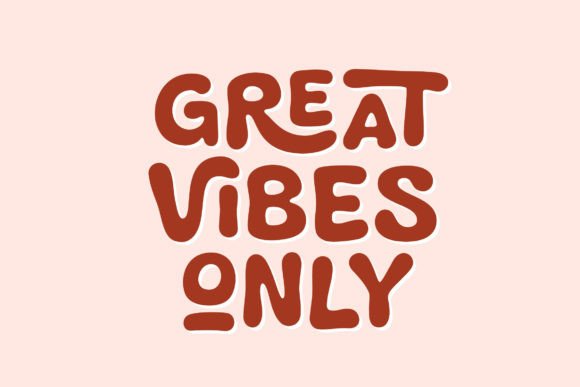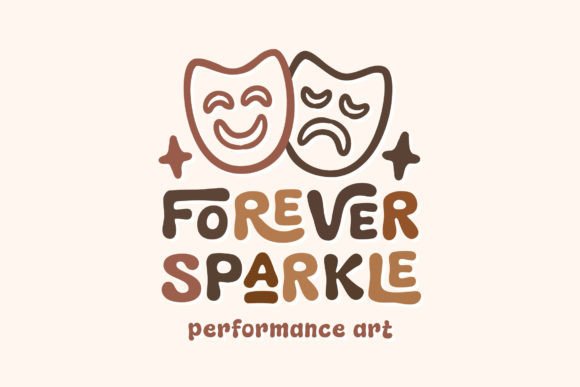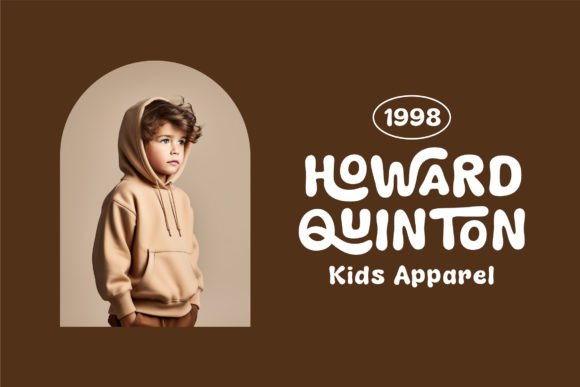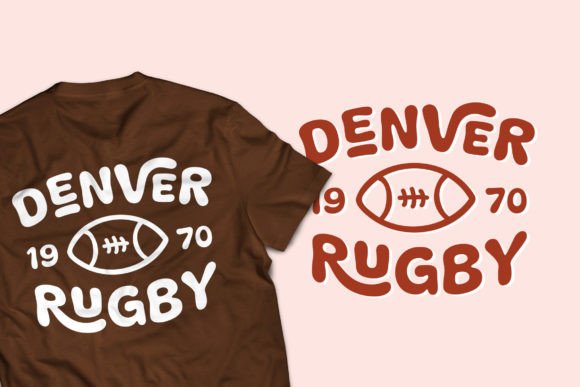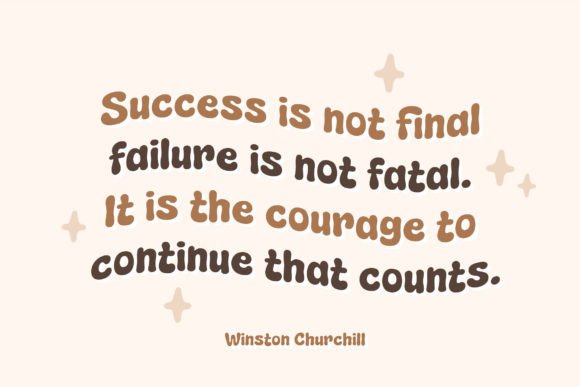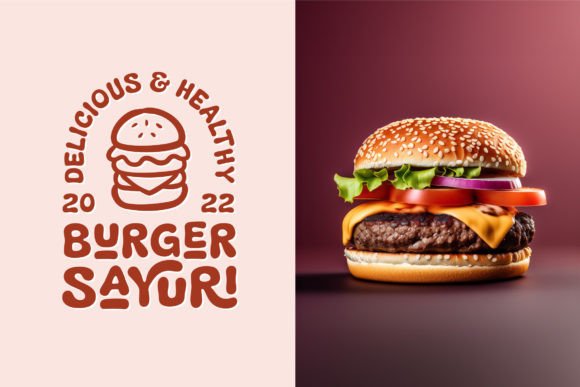
Introducing Caroline Everett Font: Add a Playful Touch to Your Designs
Are you looking for a font that can add a unique and playful touch to your designs? Look no further than Caroline Everett font! This fun and cheerful font is perfect for designers and crafters who want to create eye-catching and engaging designs. In this article, we’ll explore the features and benefits of Caroline Everett font, and how it can be used to elevate your designs.
What is Caroline Everett Font?
Caroline Everett font is a modern and playful font that is designed to add a touch of whimsy to your designs. This cute font is perfect for designs that require a playful accent, such as book covers, posters, packaging, merchandise, and logotype. With its unique and cheerful style, Caroline Everett font is sure to grab attention and leave a lasting impression.
Key Features of Caroline Everett Font
• Playful and Cheerful Style: Caroline Everett font has a fun and playful style that is perfect for designs that require a lighthearted touch.
• Unique and Quirky: This font has a unique and quirky style that sets it apart from other fonts.
• Highly Versatile: Caroline Everett font can be used for a wide range of designs, from book covers to posters, packaging, and merchandise.
• Easily Readable: Despite its playful style, Caroline Everett font is easily readable, making it perfect for body text and headlines.
Benefits of Using Caroline Everett Font
So why should you use Caroline Everett font in your designs? Here are just a few benefits of using this amazing font:
• Adds a Unique Touch: Caroline Everett font adds a unique and playful touch to your designs, setting them apart from others.
• Perfect for Playful Designs: This font is perfect for designs that require a playful accent, such as children’s book covers, posters, and packaging.
• Increases Engagement: The playful and cheerful style of Caroline Everett font can help increase engagement and grab attention.
• Easy to Use: This font is easy to use and can be easily integrated into your designs.
How to Use Caroline Everett Font
Caroline Everett font can be used in a wide range of designs, including:
• Book Covers: Add a playful touch to your book covers with Caroline Everett font.
• Posters: Create eye-catching posters with this fun and cheerful font.
• Packaging: Add a unique touch to your packaging with Caroline Everett font.
• Merchandise: Create fun and playful merchandise, such as t-shirts and mugs, with this font.
• Logotype: Use Caroline Everett font to create a unique and memorable logotype.
Tips and Tricks for Using Caroline Everett Font
Here are a few tips and tricks for using Caroline Everett font:
• Use it as a Headline Font: Caroline Everett font is perfect for headlines and titles.
• Pair it with Other Fonts: Pair Caroline Everett font with other fonts to create a unique and interesting combination.
• Experiment with Colors: Experiment with different colors to find the perfect combination for your design.
Font Name Caroline Everett Font
Author Grezline Studio
In conclusion, Caroline Everett font is a fun and cheerful font that can add a unique and playful touch to your designs. With its highly versatile style and easily readable format, this font is perfect for a wide range of designs, from book covers to posters, packaging, and merchandise. Whether you’re a designer or crafter, Caroline Everett font is a great addition to your font collection.